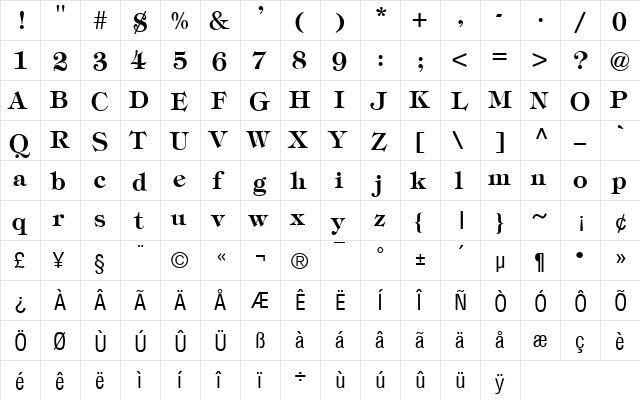
Ayar_Tapotwe_Pub Regular
Design Context for Ayar_Tapotwe_Pub Typeface
Ayar_Tapotwe_Pub takes a measured approach to typography — its balanced proportions and neutral character make it a reliable workhorse for both digital and print work.
Pro Tip: Use Ayar_Tapotwe_Pub in both headline and body roles to test its range before committing to a single application.